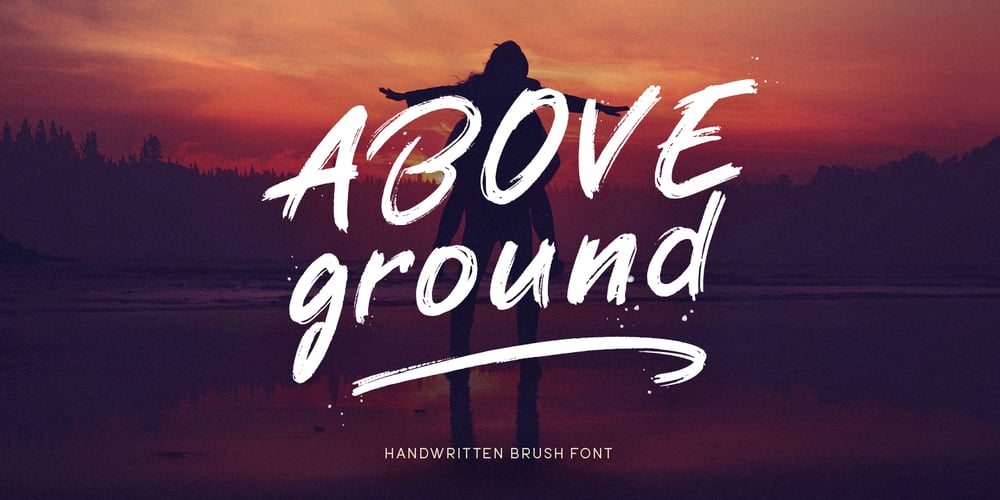
Above Ground Font Family was designed by Pavel Larin and published by Larin Type Co. Above Ground contains 1 styles and family package options. Above Ground this is a handwritten brush font for a wide range of design ideas. It is perfect for creating posters, flyers, integrating blogs, banners, designing social pages, designing T-shirts, magazines, book covers, packaging and much more. This fonts is easy to use and has OpenType features.